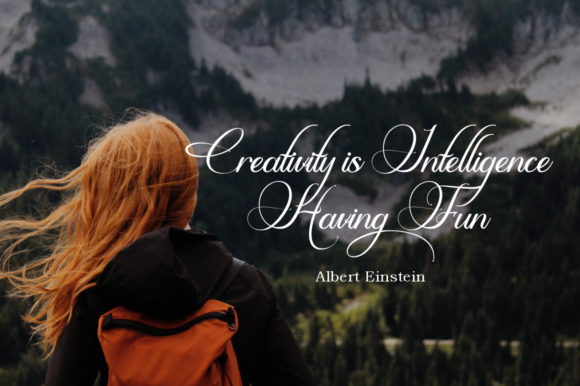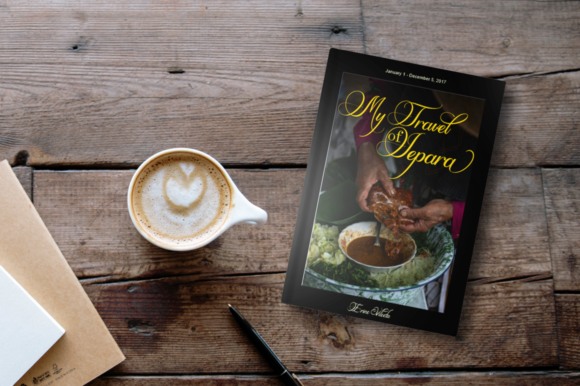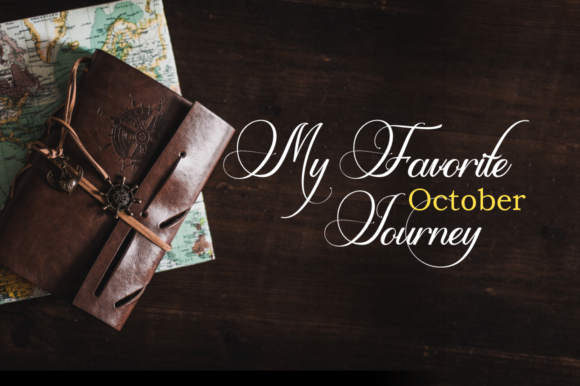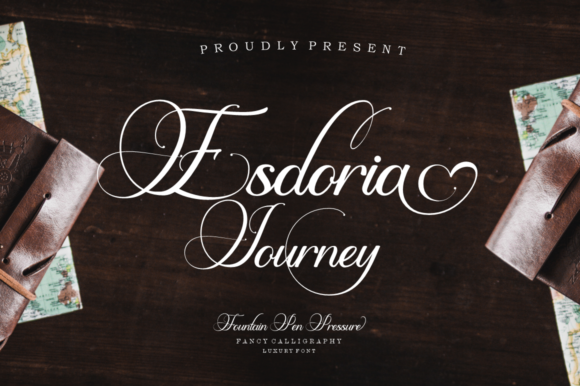
Introduction to Esdoria Journey Font
Esdoria Journey is a whimsical script font with a relaxed theme, featuring a lovely style.
No matter the topic, this font will be an incredibly asset to your fonts’ library, as it has the potential to elevate any creation This font is PUA encoded which means you can access all of the glyphs and swashes with ease.